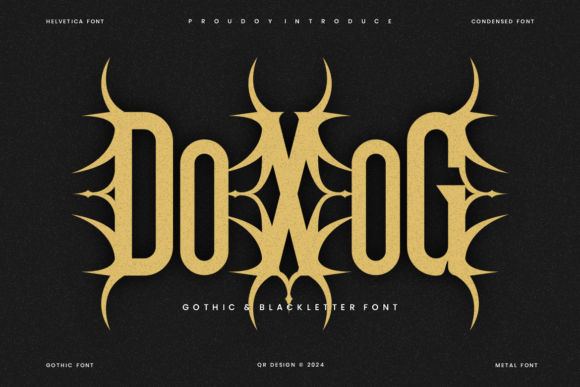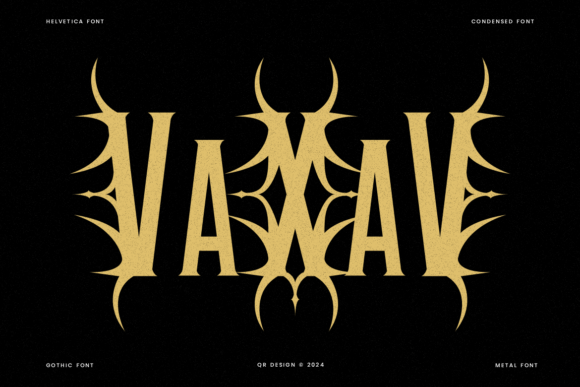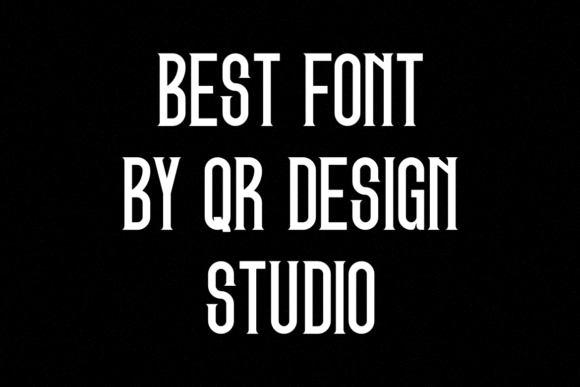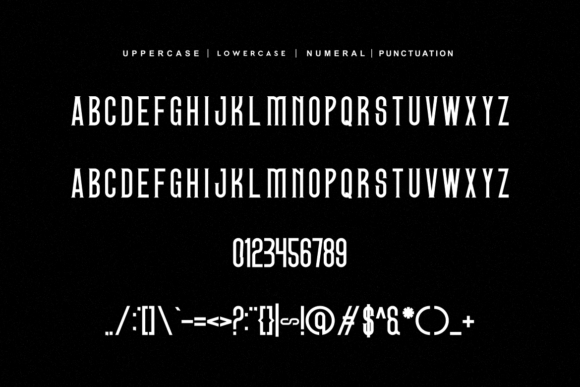
Doxog Font: Bold Blackletter Typography for Logos & Posters
About the Doxog Font
Crafted with precision, the Doxog Font is ready to bring your ideas to life. Doxog is a bold and thick lettered blackletter font. Add it confidently to your projects, and you will love the results.
Doxog’s bold, thick strokes make it ideal for headlines, logos, and short, impactful statements on posters or packaging. Its strong presence commands attention, but its intricacy is lost in smaller sizes or extended text; avoid using it for body copy or lengthy paragraphs. UI applications are also unsuitable due to its weight and potentially poor legibility.
The font’s personality is assertive and authoritative, lending itself to brands projecting power or tradition. Consider pairing Doxog with a clean sans-serif like Helvetica Neue for contrast, or a more delicate serif like Garamond for a sophisticated feel. Using a script font for secondary text could add a touch of elegance, provided it’s not overly ornate.
For a bolder, more modern feel, geometric sans-serif fonts like Futura or Gill Sans could complement its strong forms. Careful consideration of spacing is crucial in all pairings to prevent visual clutter given Doxog’s already heavy weight.